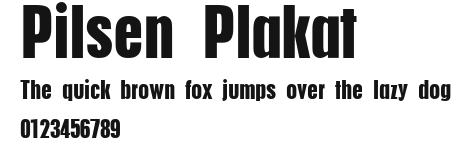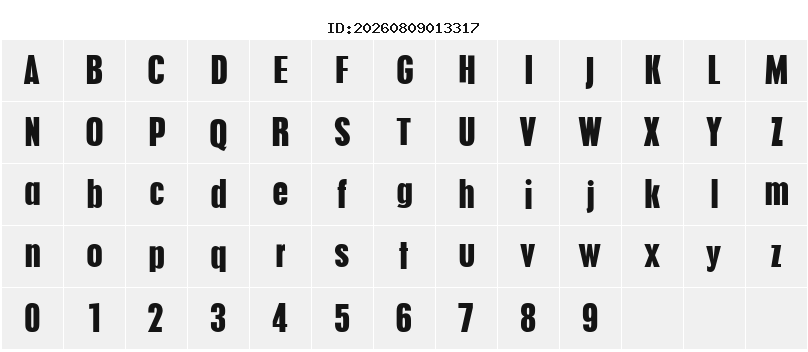
Pilsen Plakat Preview
• Font Name: Pilsen Plakat
• Full Font Name: Pilsen Plakat
About Pilsen Plakat.ttf
Pilsen Plakat.ttf is a modern, elegant sans-serif font designed for ultimate readability and visual harmony. Perfect for branding, headlines, web design, and print materials.